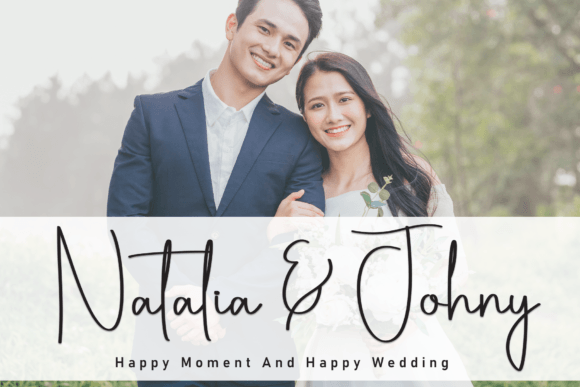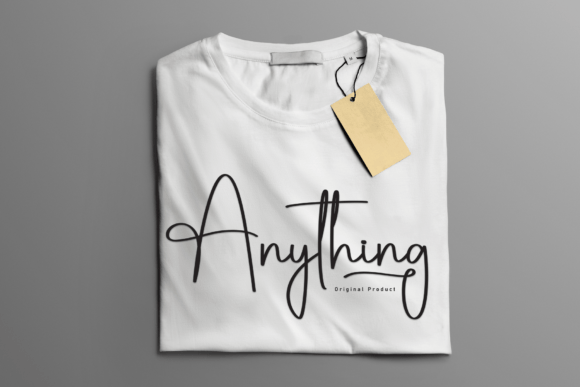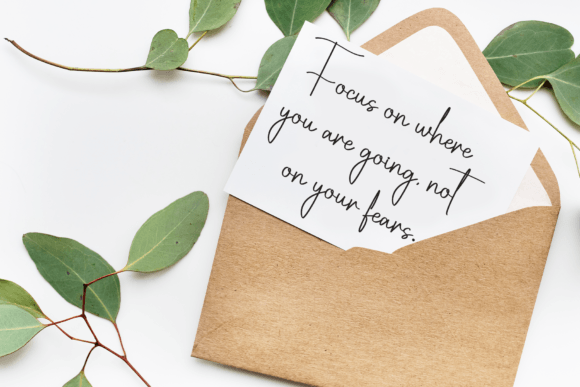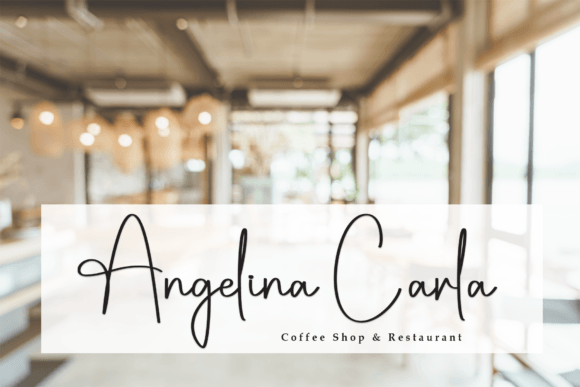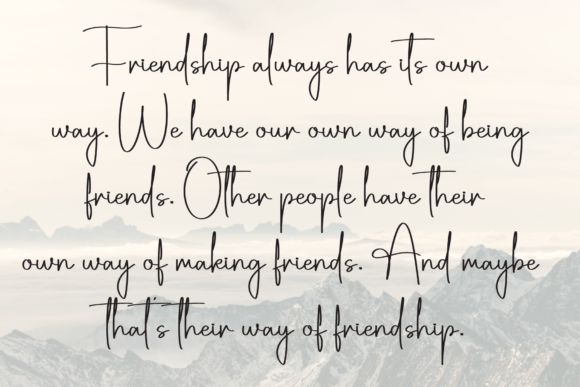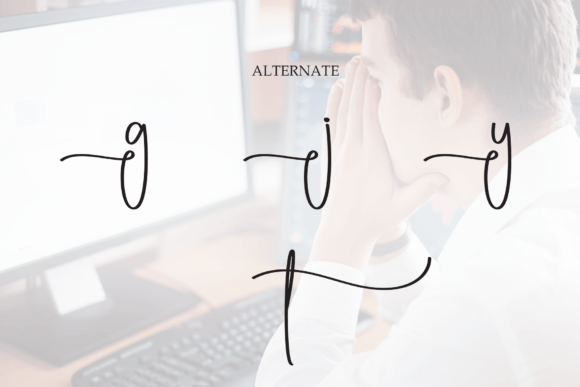
Introduction to Mistyping Font
Mistyping is a sweet and friendly handwritten font.
Key Features of Mistyping Font
Why Choose Mistyping Font?
Mistyping Font offers exceptional quality and versatility, making it a valuable addition to your design toolkit. Whether you’re creating for personal projects or commercial use, Mistyping Font delivers professional results.